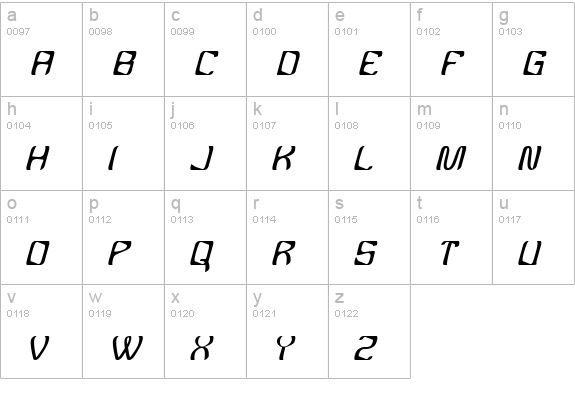
YBandTuner Font Details
YBandTuner font is a stylish and modern typeface that exudes creativity and innovation. Its sleek design and unique characters make it perfect for a wide range of projects, from branding to packaging and everything in between. The font features clean lines and a contemporary aesthetic that will instantly elevate any design it is used in. What sets YBandTuner font apart is not just its striking appearance, but the fact that it is completely free to download. That's right, you can access this incredible font at no cost by visiting FontsMarket.com. Whether you're a designer looking to add a fresh touch to your work or a hobbyist wanting to experiment with new fonts, YBandTuner is the perfect choice. Don't miss out on the opportunity to enhance your projects with this exceptional font. Download YBandTuner today and let your creativity soar!